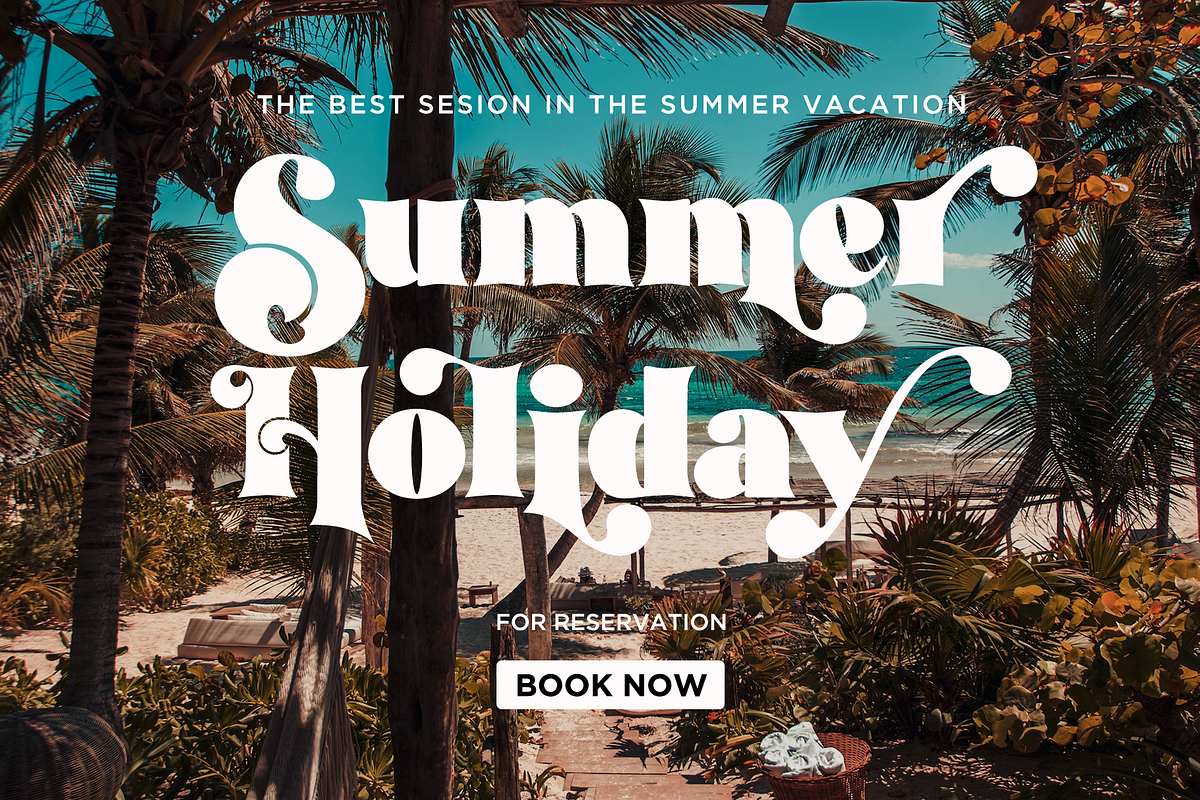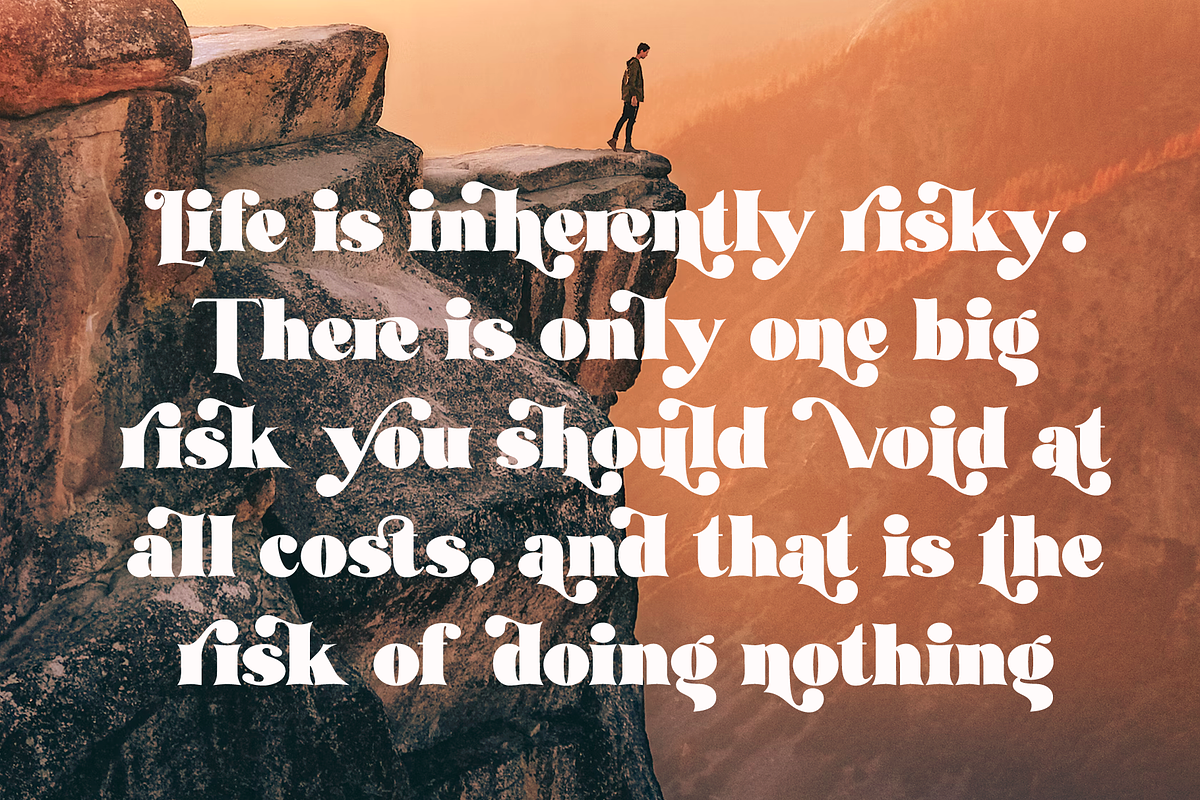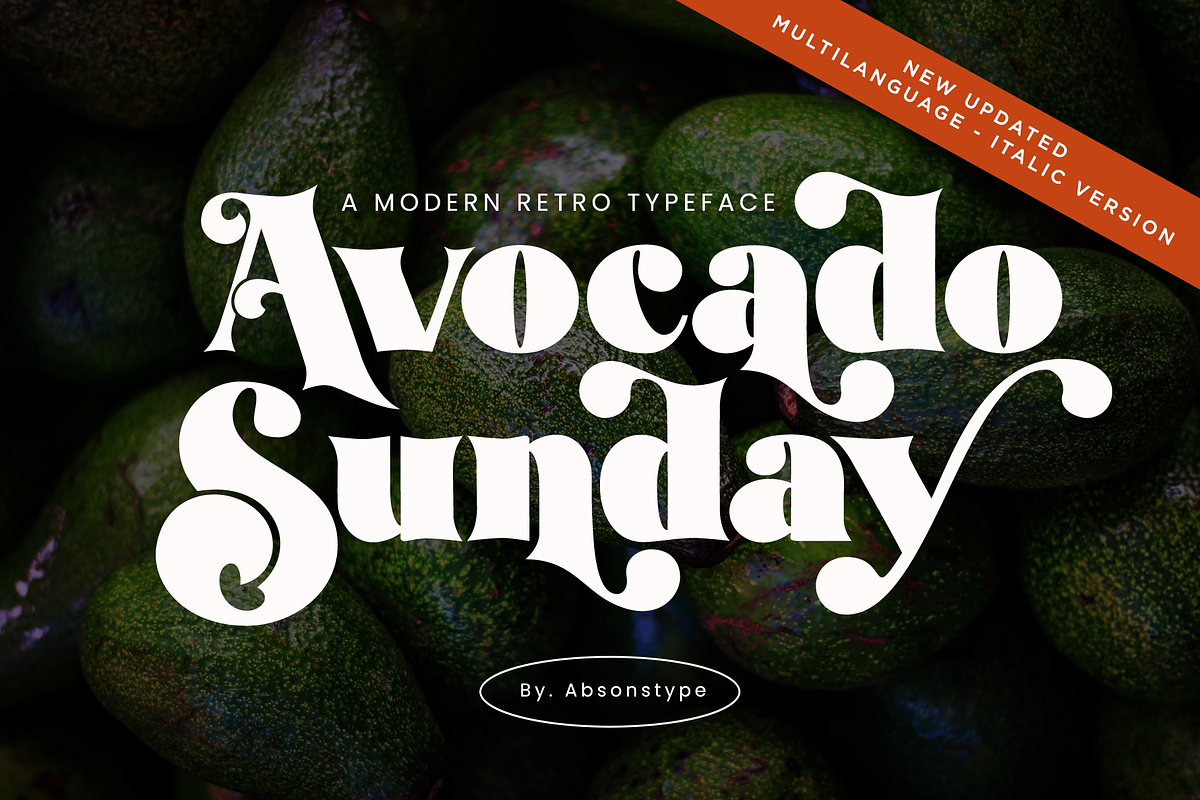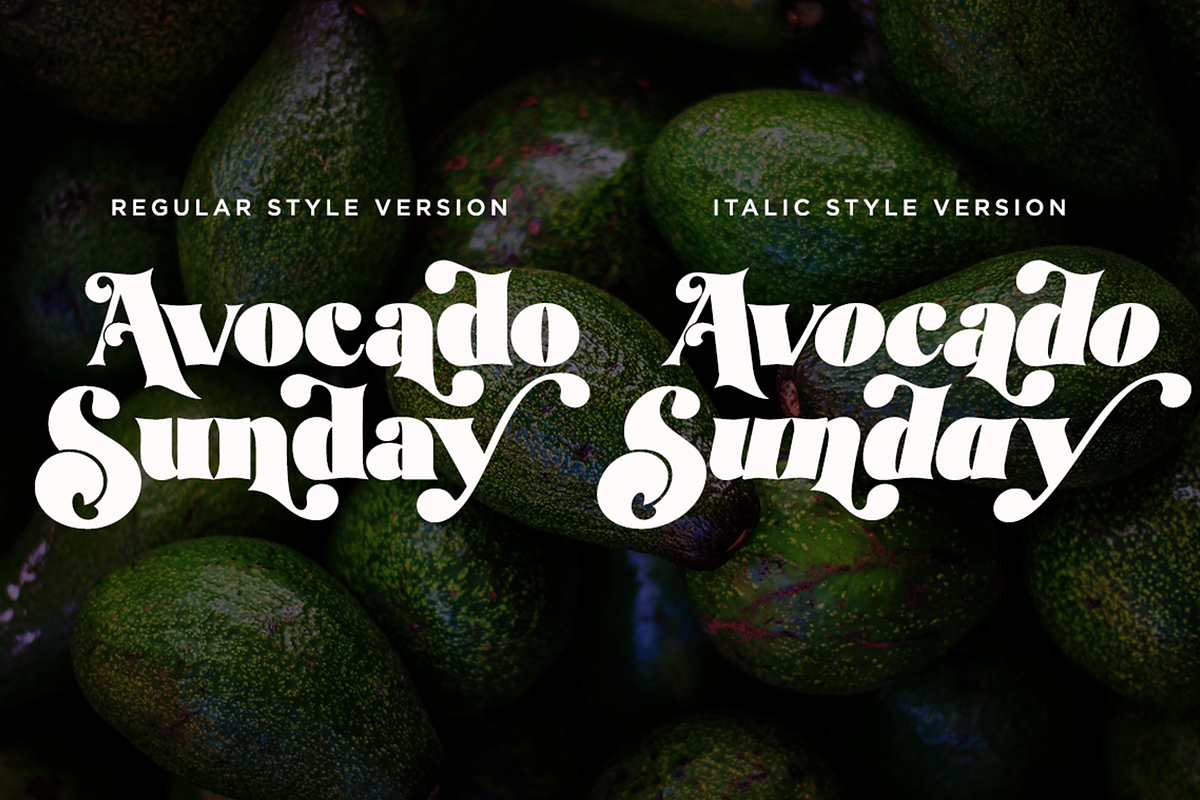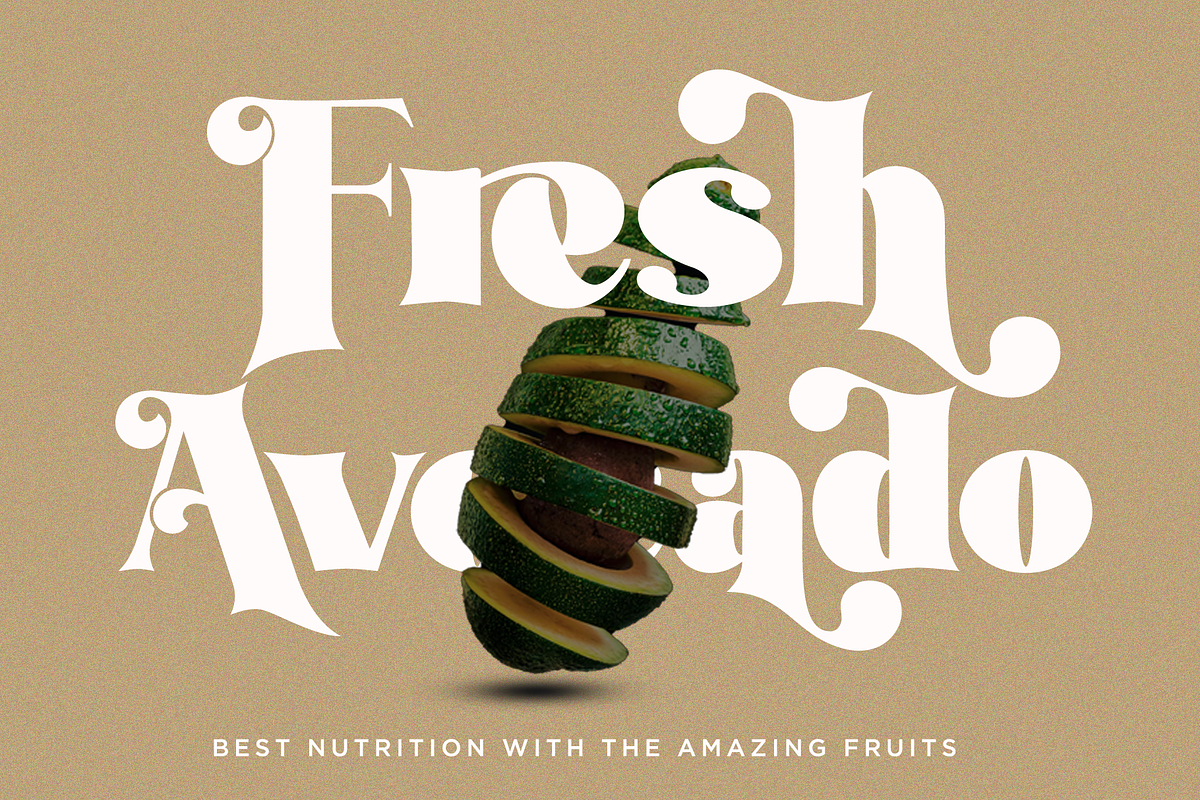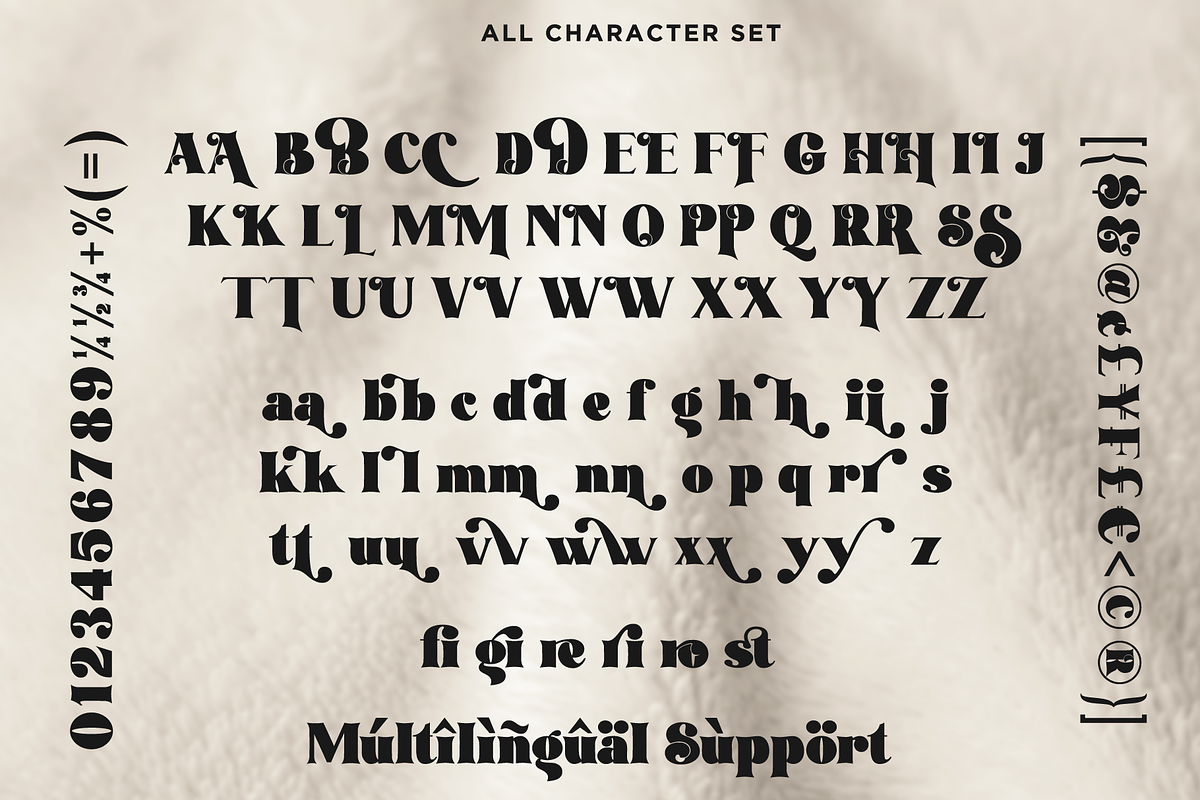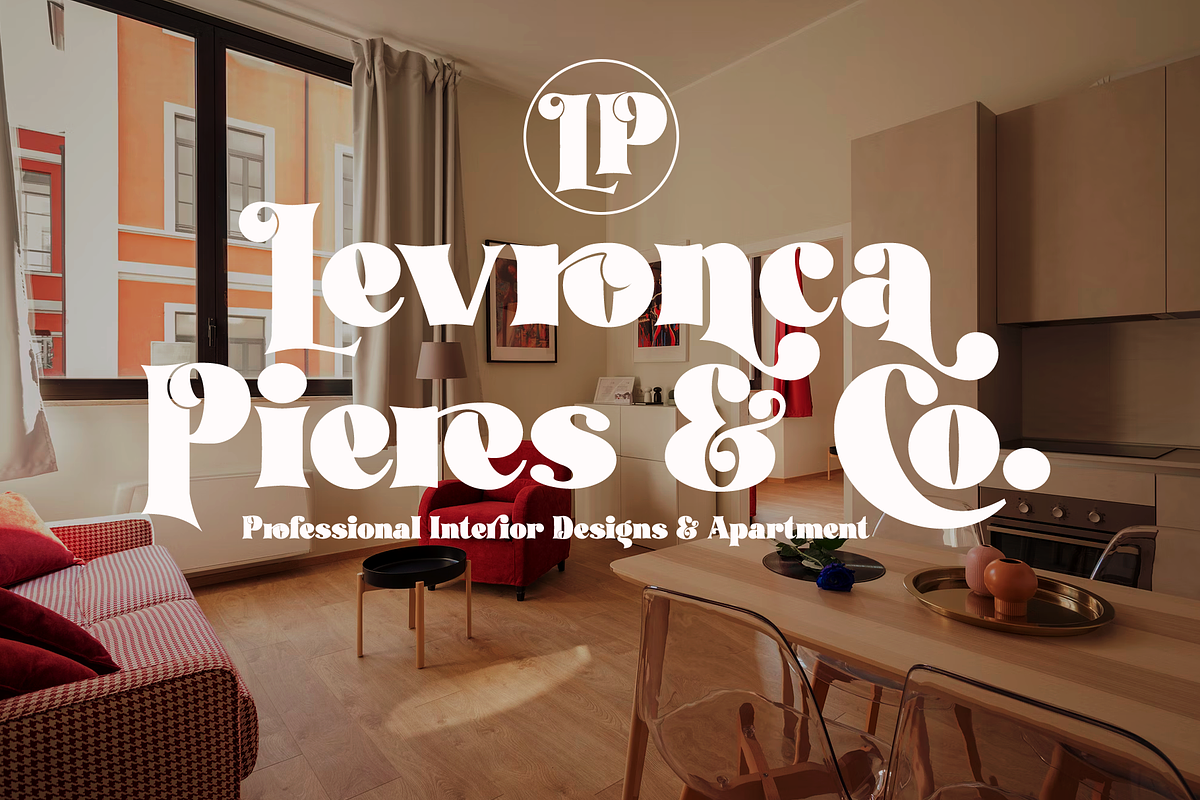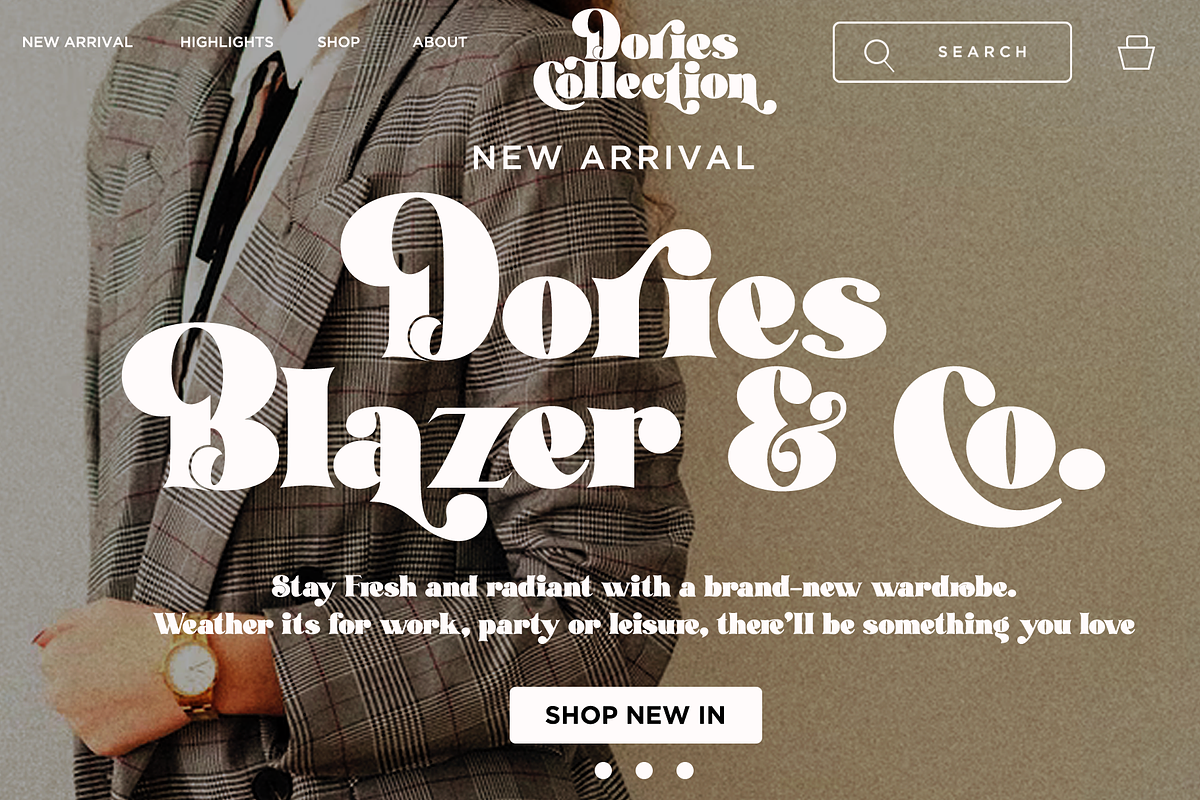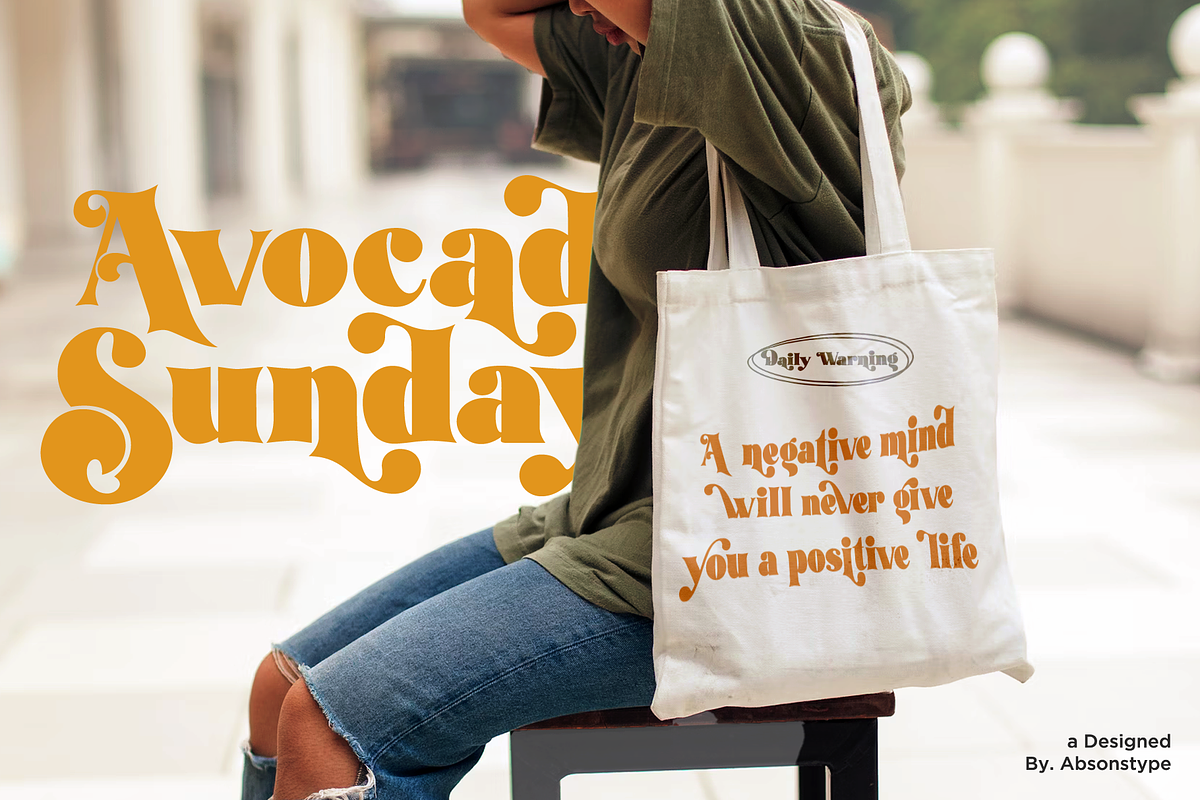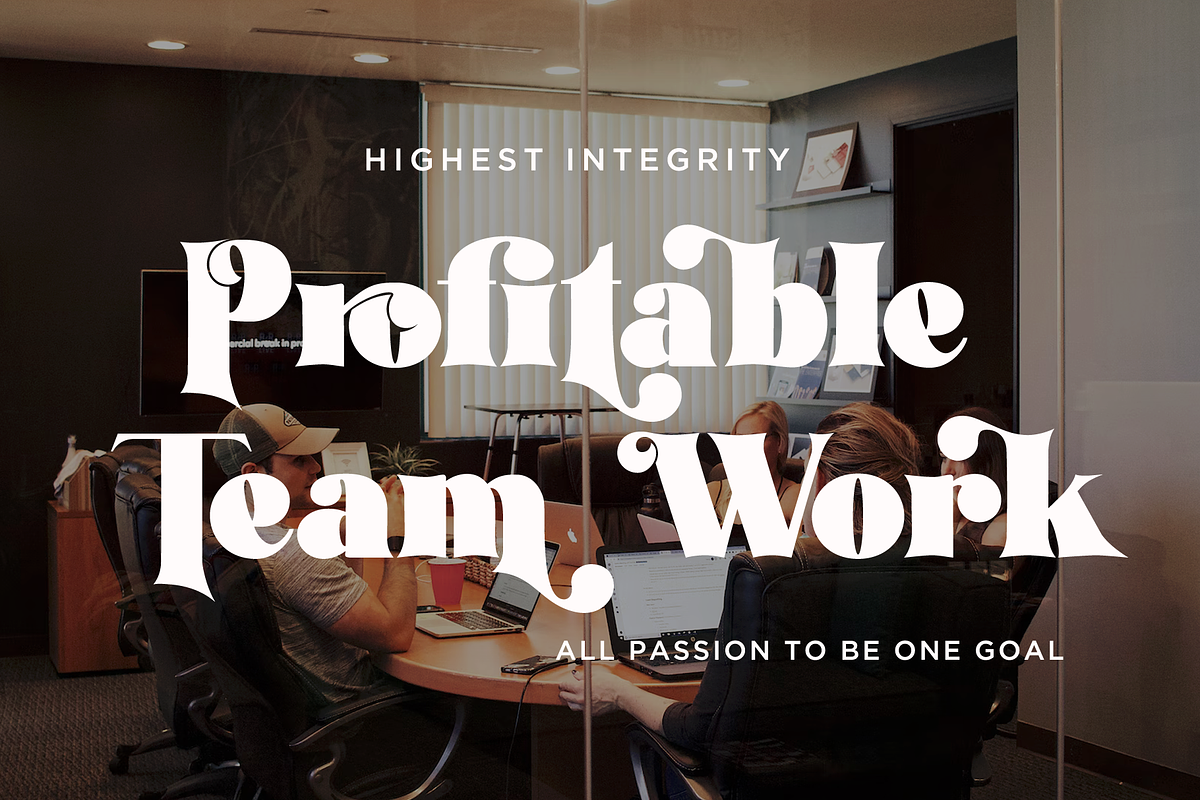
Avocado Sunday - Updated
NEW UPDATED MULTILANGUAGE SUPPORT-ITALIC VERSION
Avocado Sunday is the Serif display typeface with combine uppercase and lowercase looks and feel nice balanced. Provide with alternates and ligatures font in variant style make the design letter looks nice. Honestly it works perfectly for headlines, logos, posters, packaging, T-shirts and much more.
- Regular version (Update additional Italic Version)
- Character set A-Z in Uppercase and Lowercase
- Alternates in Uppercase and Lowercase
- Ligatures in Lowercase
- Numerals & Punctuation (Updated)
- Accented Characters (Updated)
- Multiple Languages Supported (Updated)